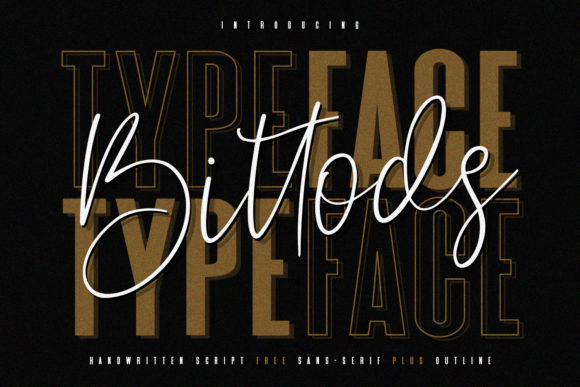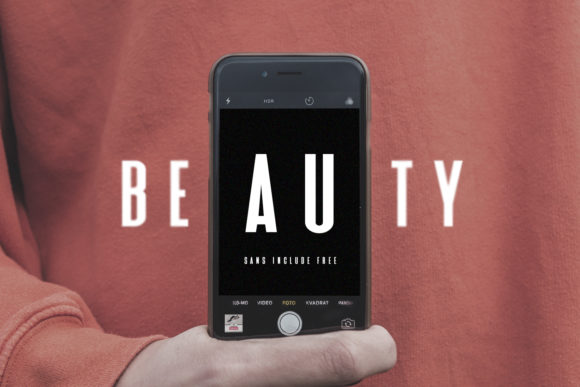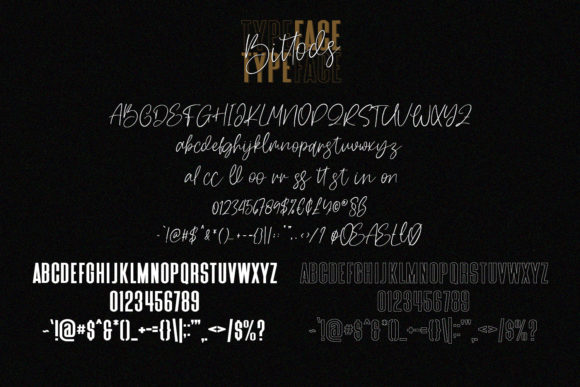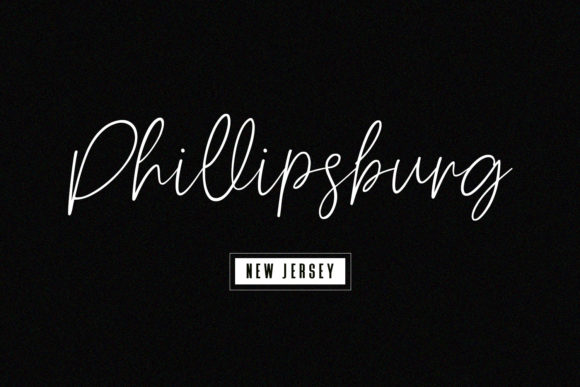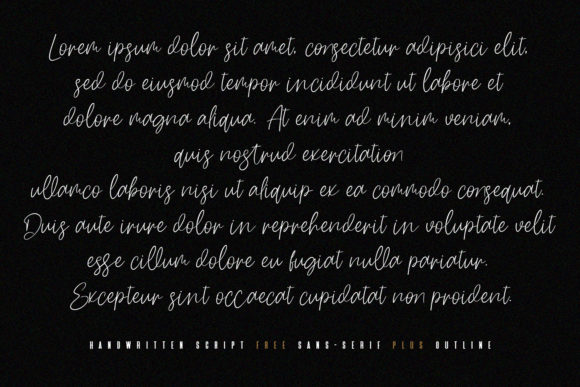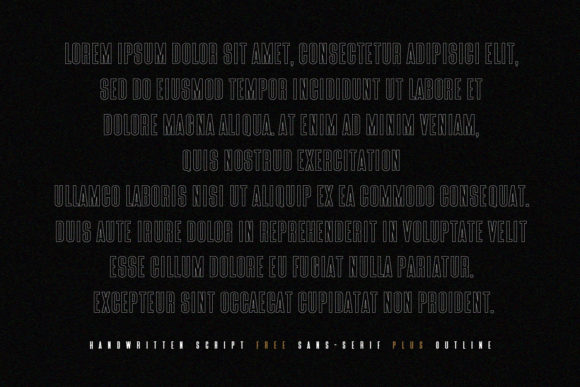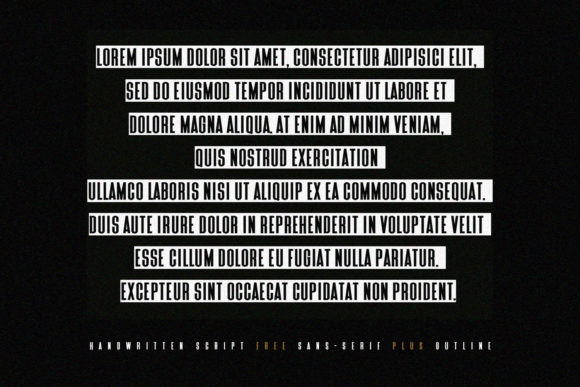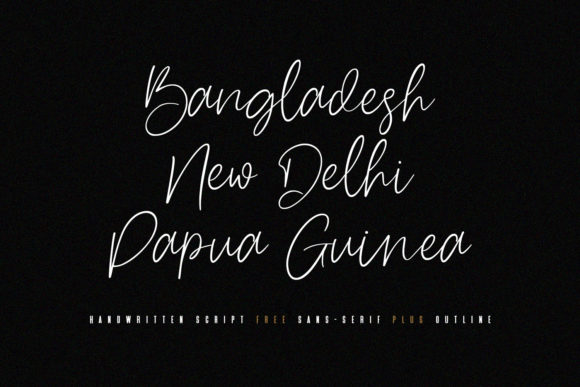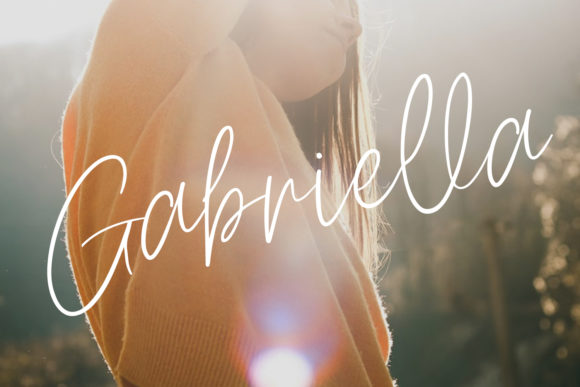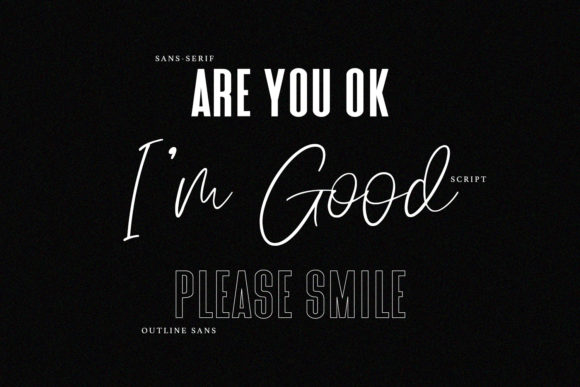
Bittods Duo Font
About Bittods Duo Font
Bittods duo is a match made in heaven, the authentic letters of the script perfectly complement the sans serif’s style. Combining these two fonts on your next design will give your next design an exquisite and sophisticated feel.
This versatility means that this font can be used in a wide variety of applications from branding, packaging, to arts & crafts projects- the only limit is your imagination!